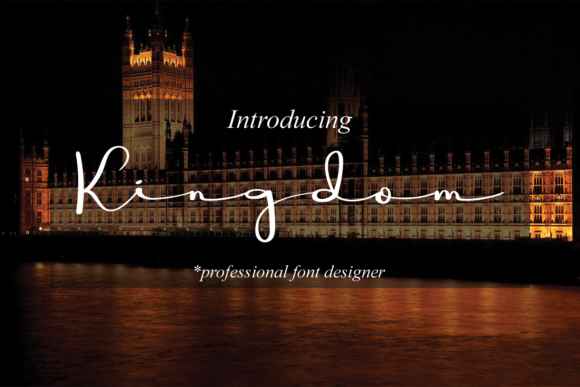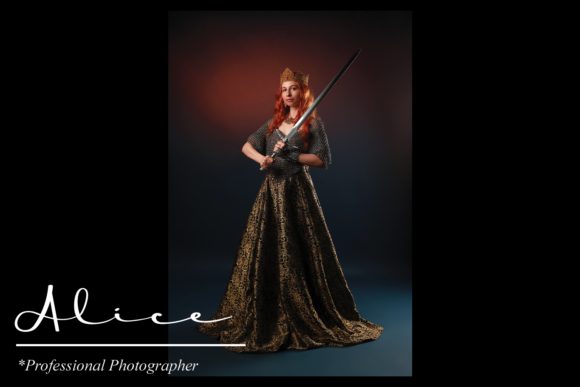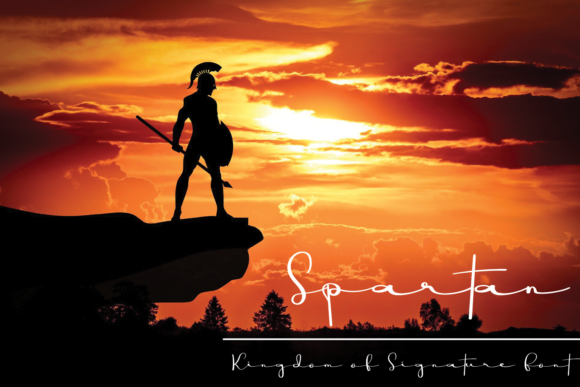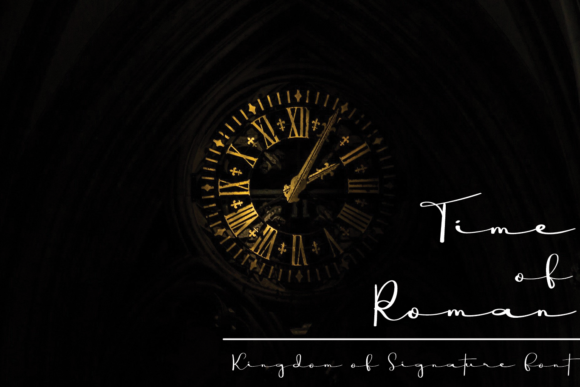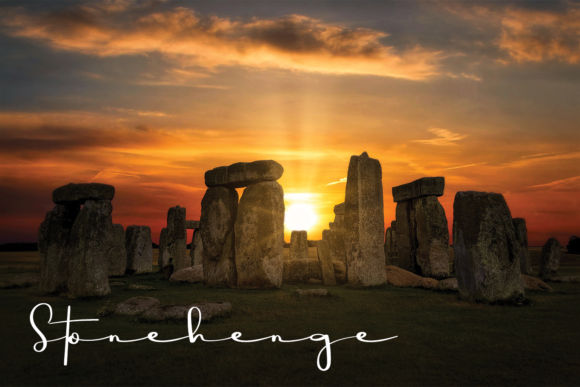
Kingdom Font
About Kingdom Font
Kingdom is a beautiful and refined script font. It has a classy, elegant and modern look that can be used for logos, branding, invitations, stationery, wedding designs, social media posts, and much more!